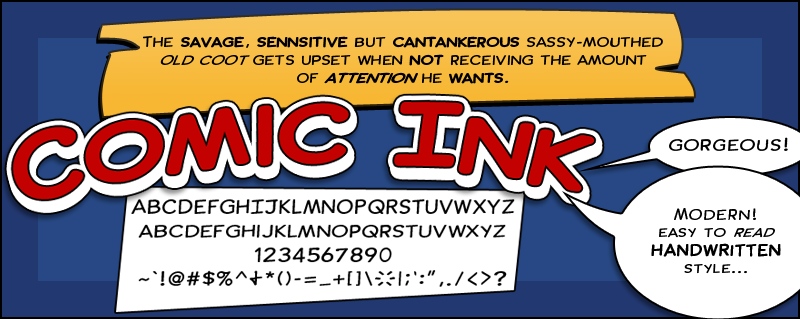
Font name: | Comic Ink |
Author: | Michael Hassler |
Note by Michael Hassler | |
I've always loved the look and feel of the handwritten inkings from comics. So, I wanted to create my own inspired version. Hoping to bring a modern style, easy to read with hand lettered charm, Comic Ink was born. |